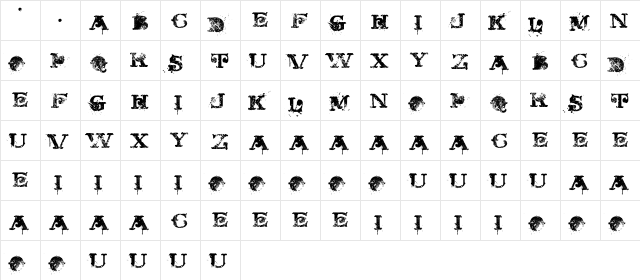
BLUEBERRY Regular Font Preview
BLUEBERRY Regular
BLUEBERRY Regular Font Details
Design Context for BLUEBERRY Typeface
BLUEBERRY is a composed and adaptable typeface that performs quietly and consistently across a wide range of design contexts.